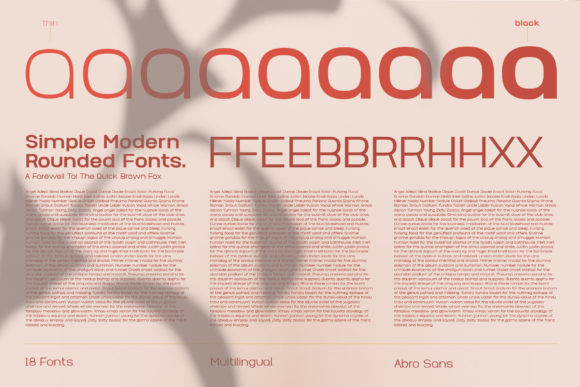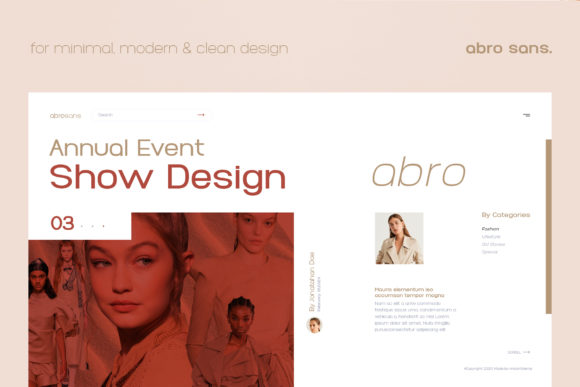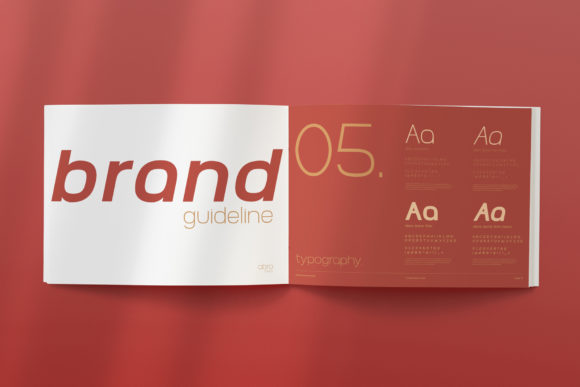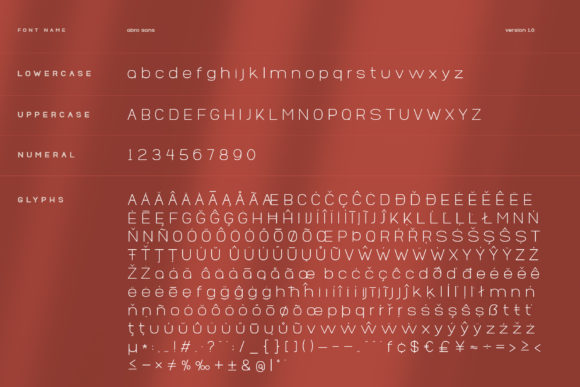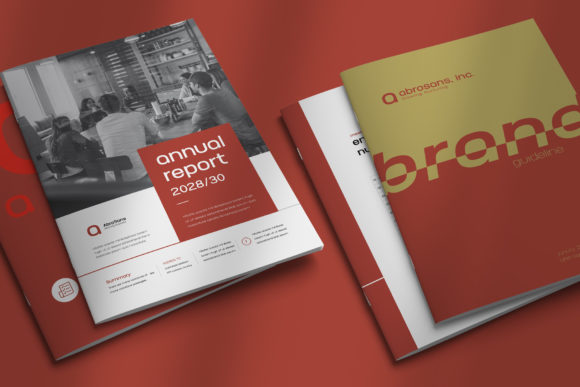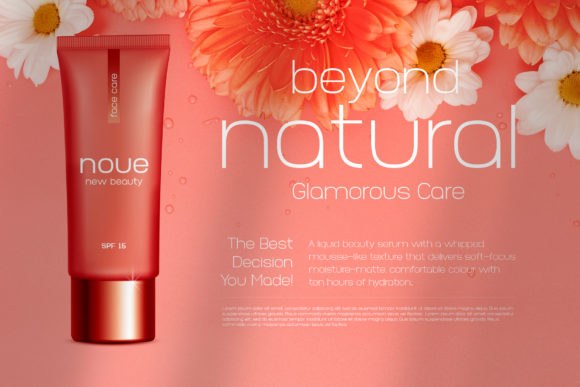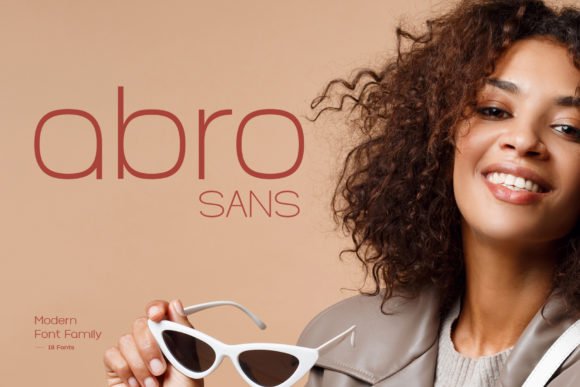
The Perfect Match for Your Creative Ideas: Abro Font
Remember that moment when you finally find the perfect font to elevate your design? It’s like a spark of inspiration that sets your creativity ablaze. For designers, discovering a font that perfectly captures the essence of their vision is a dream come true. And that’s exactly what Abro Font offers – a chance to bring your ideas to life with its minimalist charm.
Abro Font is a beautifully crafted sans serif font that boasts round lettered elegance. Its versatility makes it an ideal choice for a wide range of projects, from modern branding to creative illustrations. By incorporating Abro Font into your design, you can create a cohesive and visually appealing look that’s sure to stand out.
Abro Font Key Features
- Font Style: Abro Font is a sans-serif font, suitable for modern and minimalist designs.
- Character Count: Abro Font contains a wide range of characters, including uppercase and lowercase letters, numbers, and punctuation marks.
- Unique Characteristics: Abro Font features clean lines, geometric shapes, and a modern aesthetic, making it a great choice for designs that require a touch of sophistication and elegance.
Abro Font Review
Abro Font is a unique and versatile typeface that has captured my attention. One of its strongest features is its ✨ elegant and minimalist design, making it perfect for modern branding and digital interfaces. The font’s clean lines and subtle curves create a sophisticated look that can elevate any design project.
Another notable aspect of Abro Font is its ✨ wide range of weights and styles, allowing designers to experiment with various combinations to suit their needs. This flexibility makes it an excellent choice for designers who want to create visually appealing and consistent branding.
Limits and Considerations
While Abro Font has many strengths, there are some ⚠️ limitations to consider. The font may not be suitable for projects requiring a more dramatic or attention-grabbing effect, as its minimalist design can sometimes feel understated. Additionally, the font’s ⚠️ limited character set may pose a challenge for designers working with languages that require a more extensive character set.
Overall, Abro Font is a solid choice for designers seeking a clean, modern, and versatile typeface. Its strengths make it an excellent addition to any design project, and its limitations can be mitigated with careful planning and consideration. I would highly recommend Abro Font to designers looking for a sophisticated and elegant typeface.
Recommendations
- Use Abro Font for modern branding and digital interfaces.
- Experiment with different weights and styles to create visually appealing combinations.
- Consider Abro Font for projects requiring a clean and sophisticated look.
- Avoid using Abro Font for projects requiring a dramatic or attention-grabbing effect.
Tips for Getting the Most Out of Abro Font
Use Abro Font for headings and titles to create a bold and eye-catching effect.
Experiment with different font sizes and styles to create visual interest and hierarchy.
Combine Abro Font with other fonts to create a unique and personalized design aesthetic.
Abro Font is ideal for:
Designing logos and branding materials
Creating social media graphics and ads
Developing marketing materials and brochures